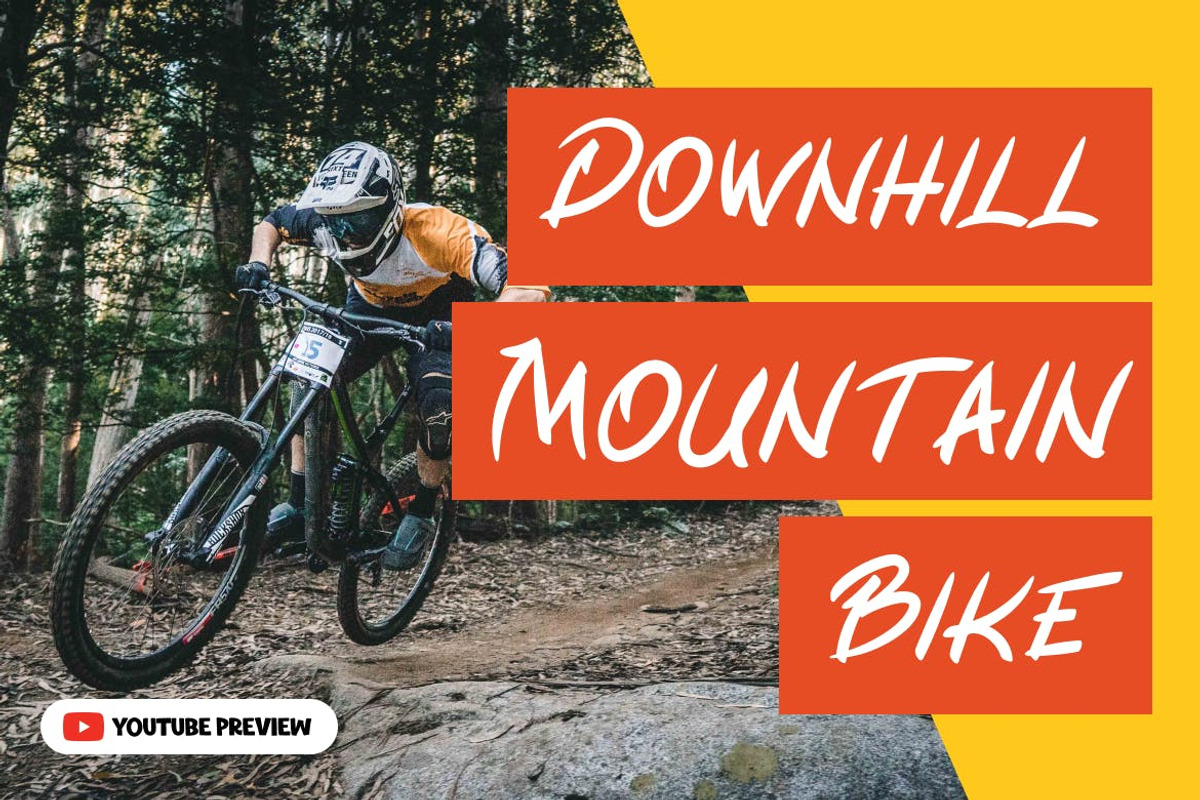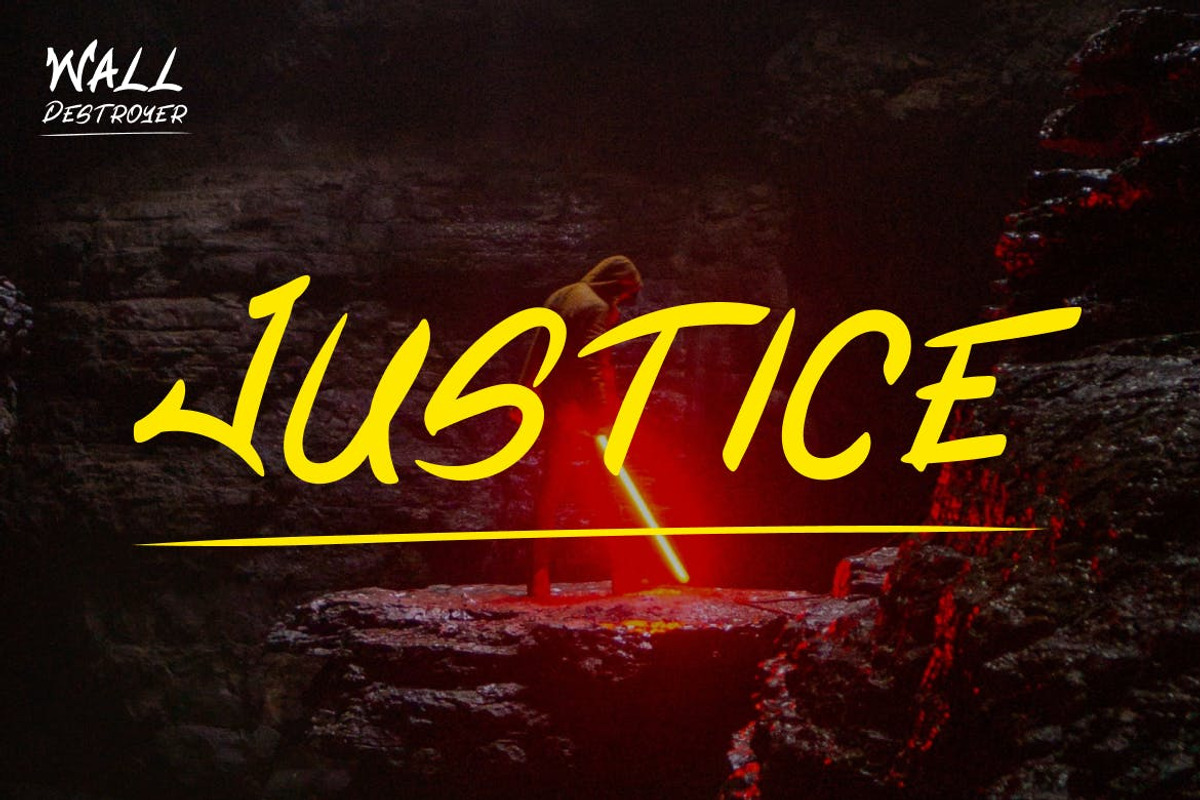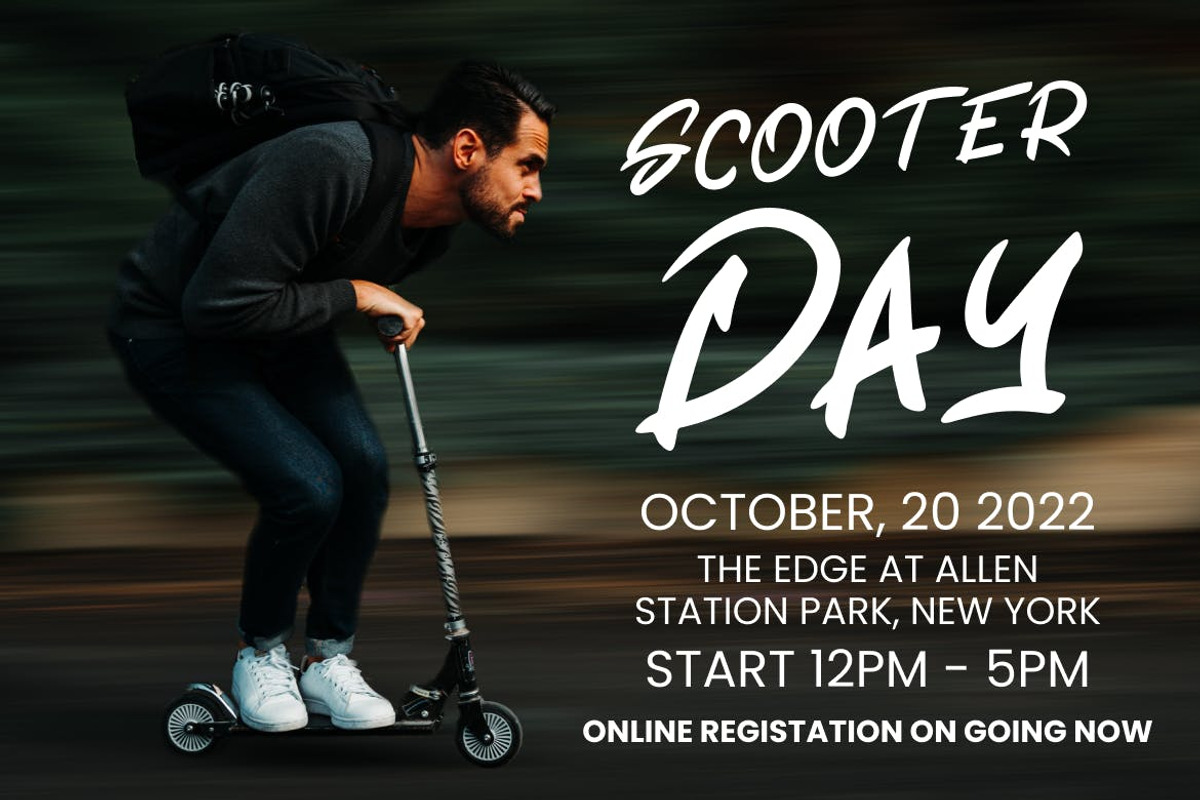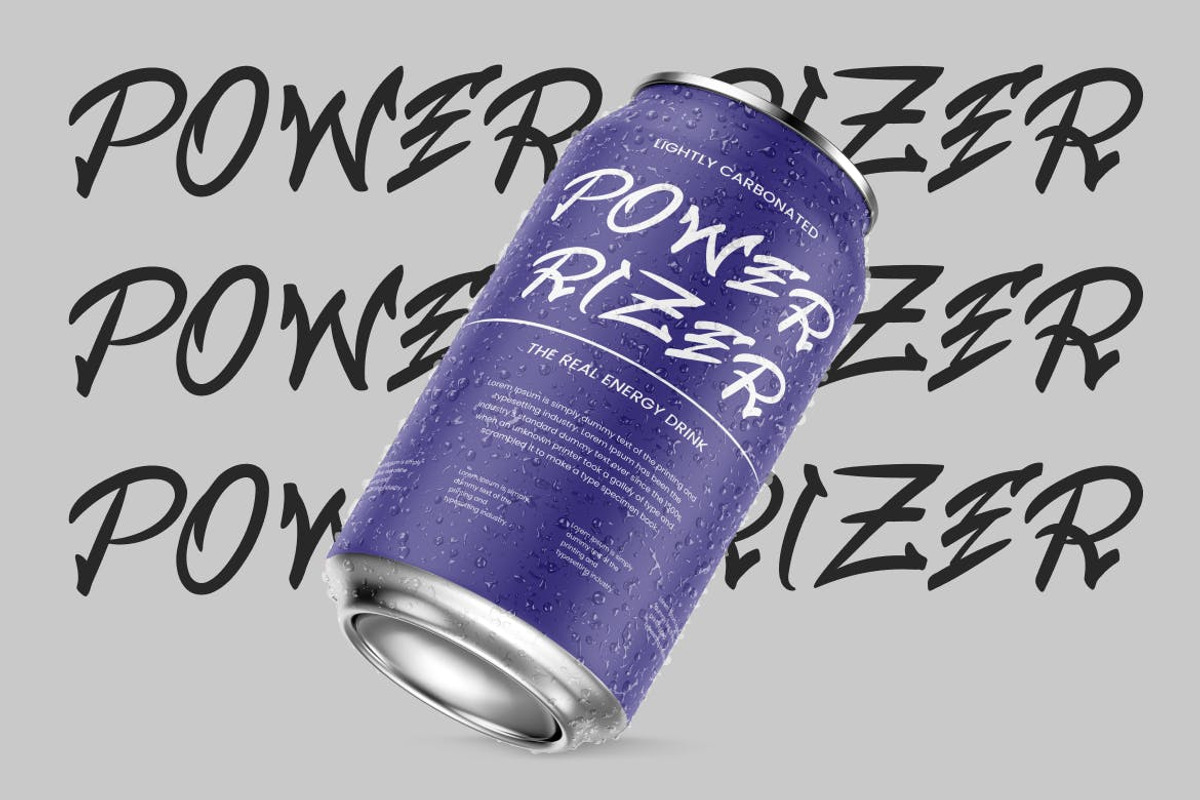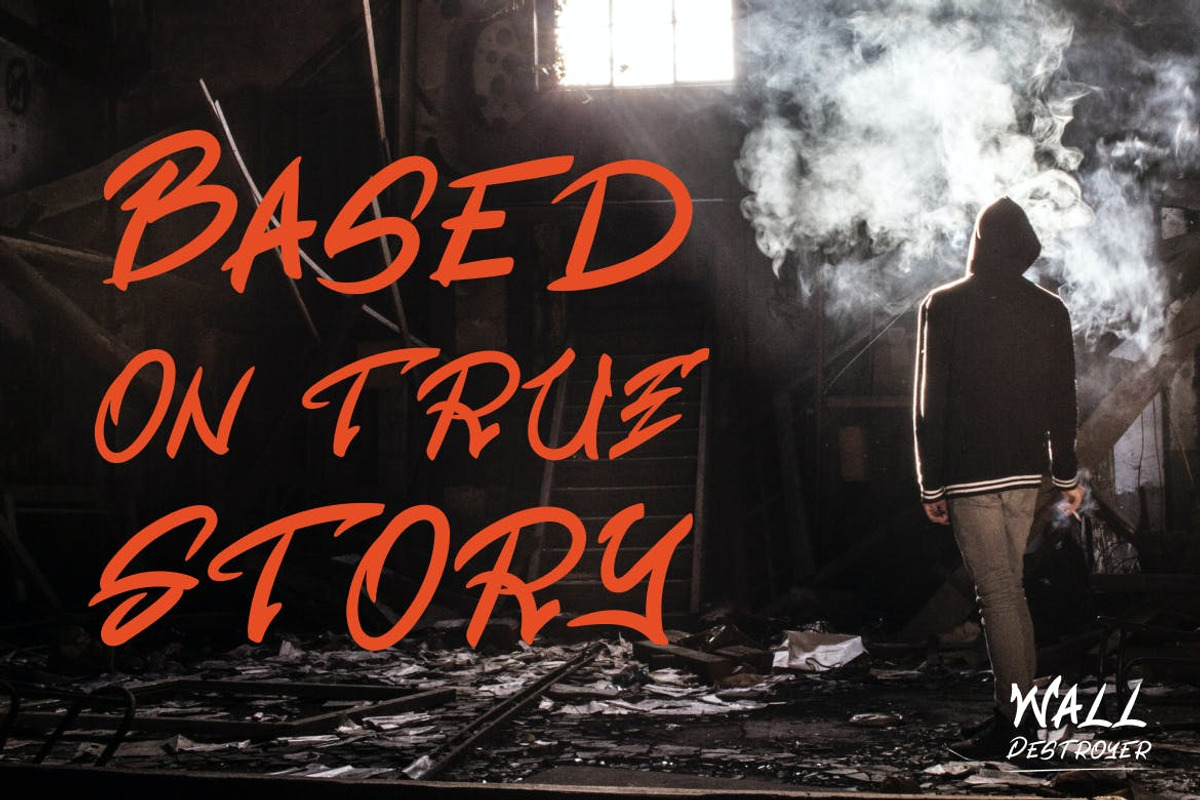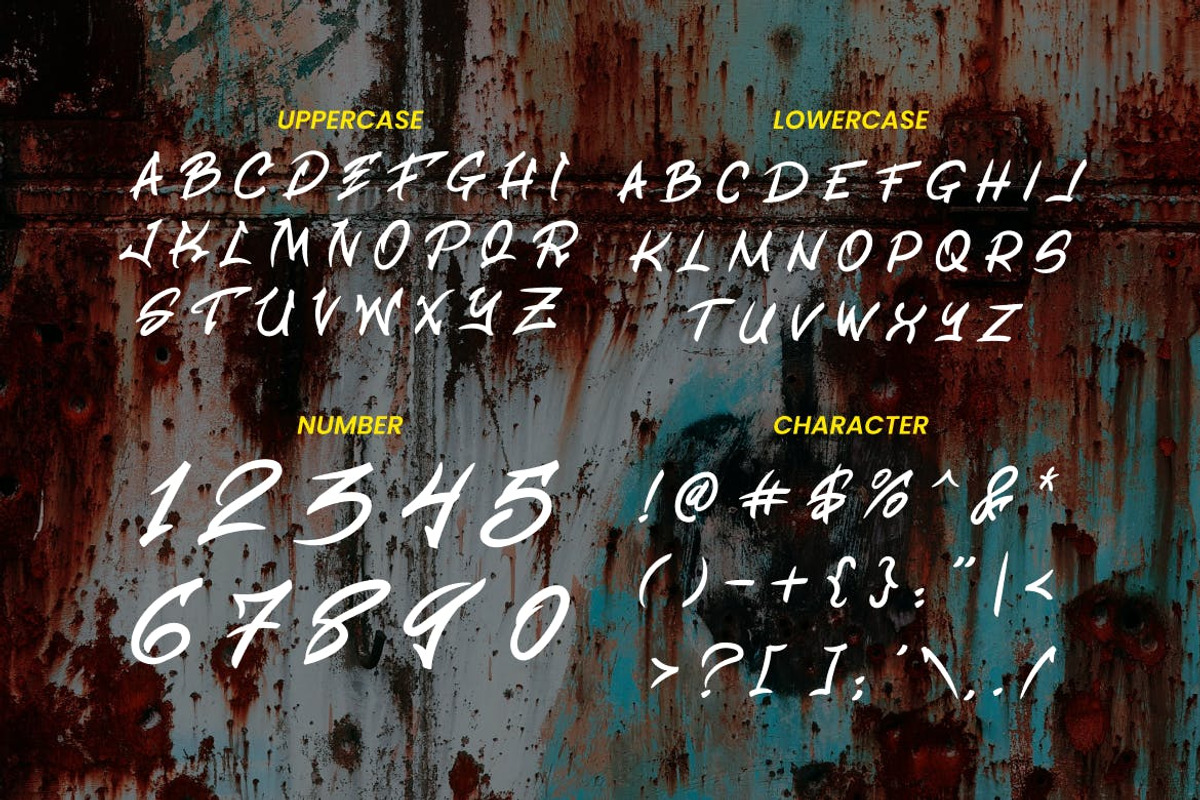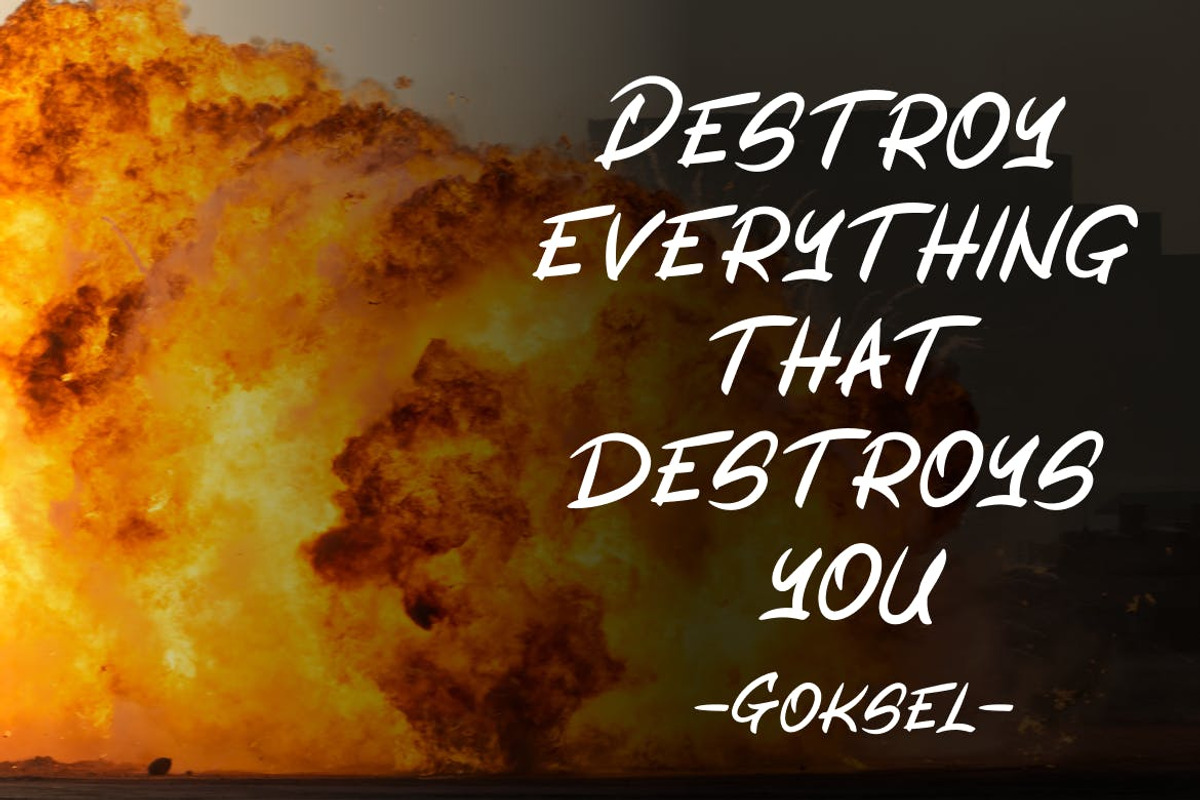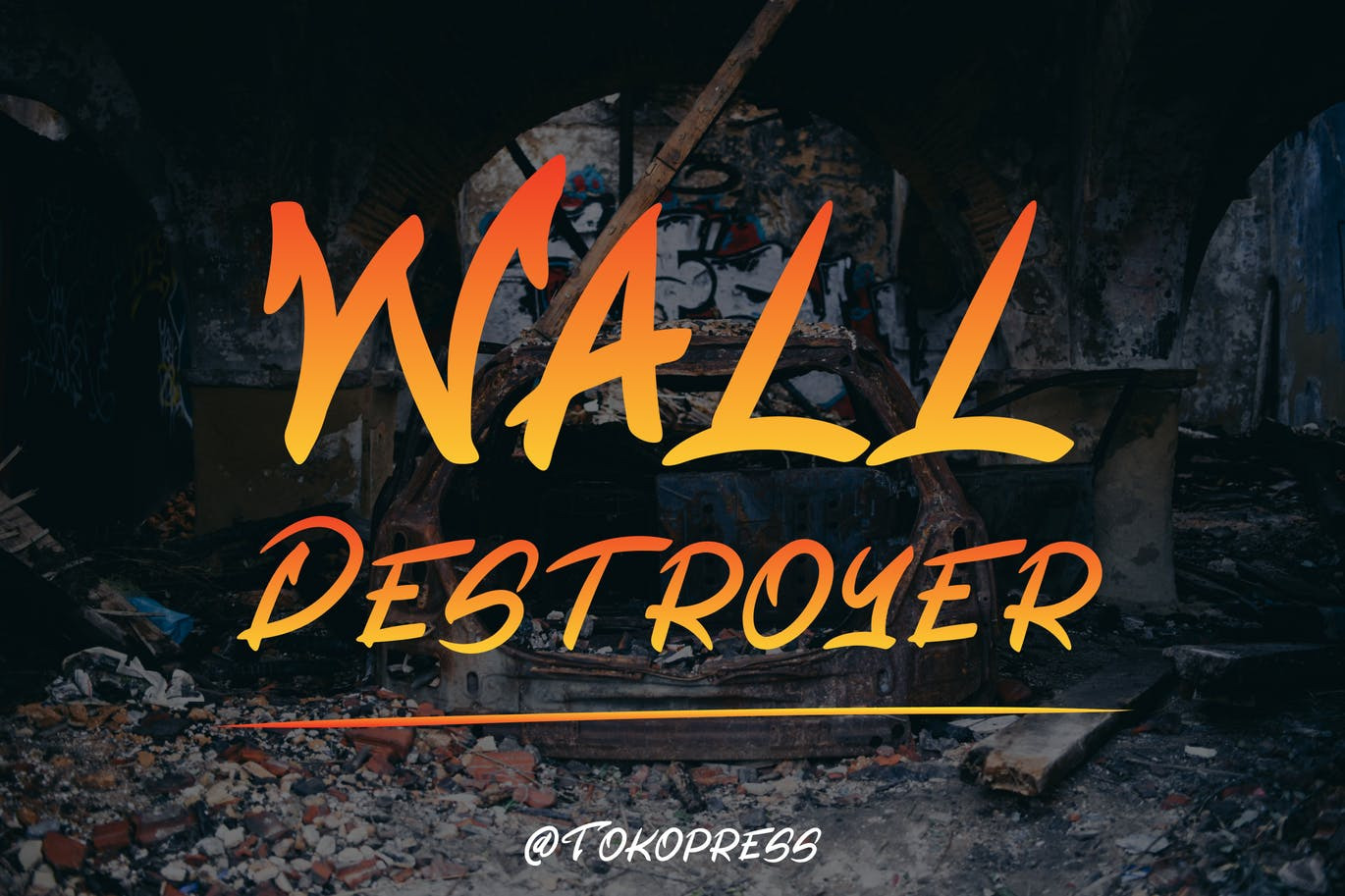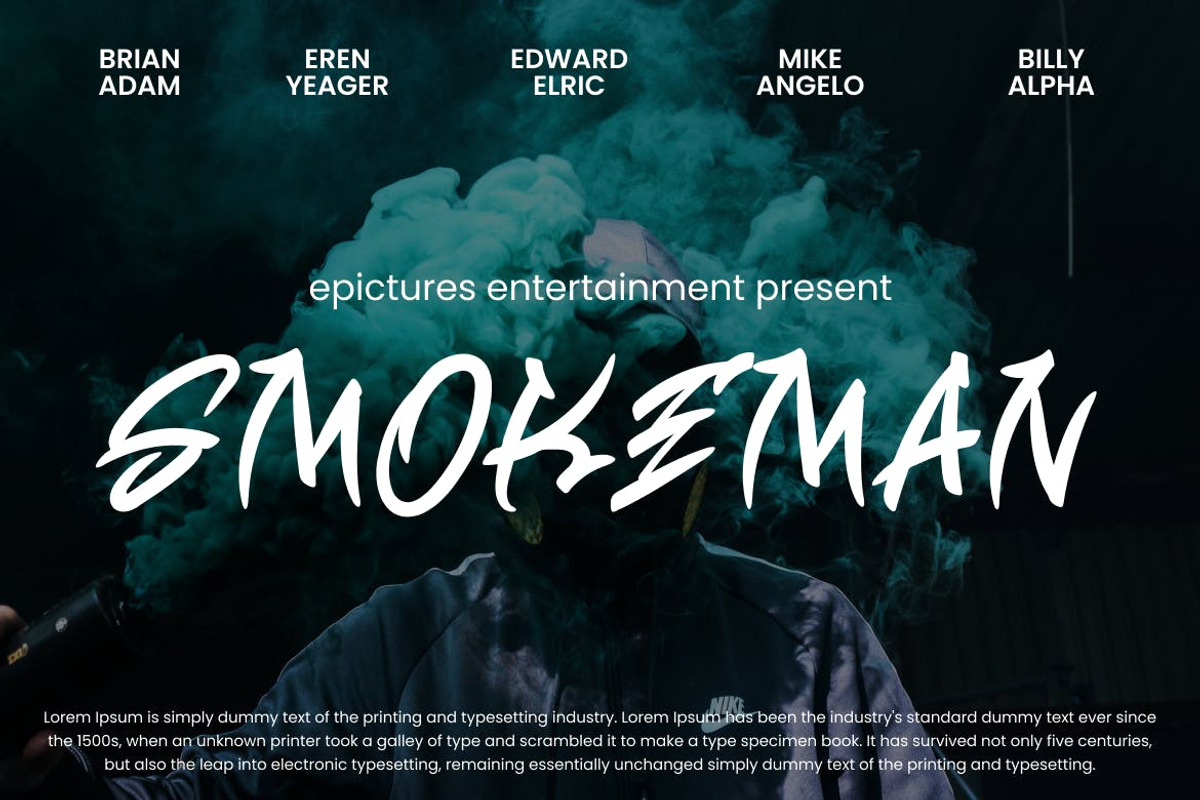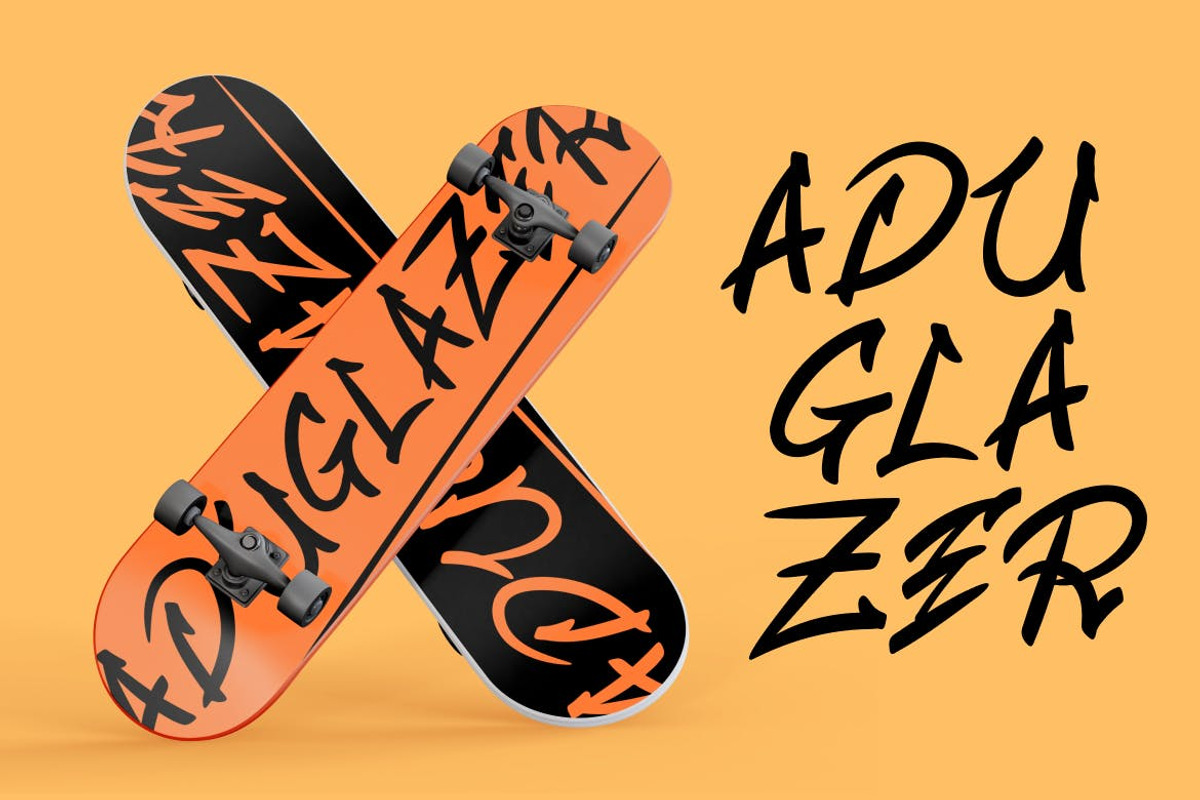
Wall Destroyer - Action Font
Wall Destroyer - Action font
With the aggressiveness of the strokes, the shout and your face attitude it has, Wall Destroyer is all about energy and young blood.
Suit perfectly for hip-hop, rebellious and extreme sport segmented magazines, posters, movie titles, music posters, youtube covers, youtube thumbnails, social media page covers and so on...